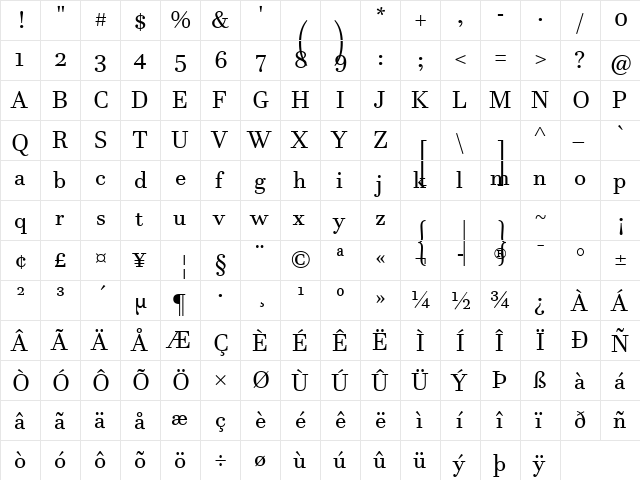
Javanese Text Regular
| Foundry | Tiro Typeworks Ltd., for Microsoft Corporation. |
| Designer | John Hudson |
Design Context for Javanese Text Typeface
Javanese Text takes a measured approach to typography — its balanced proportions and neutral character make it a reliable workhorse for both digital and print work.